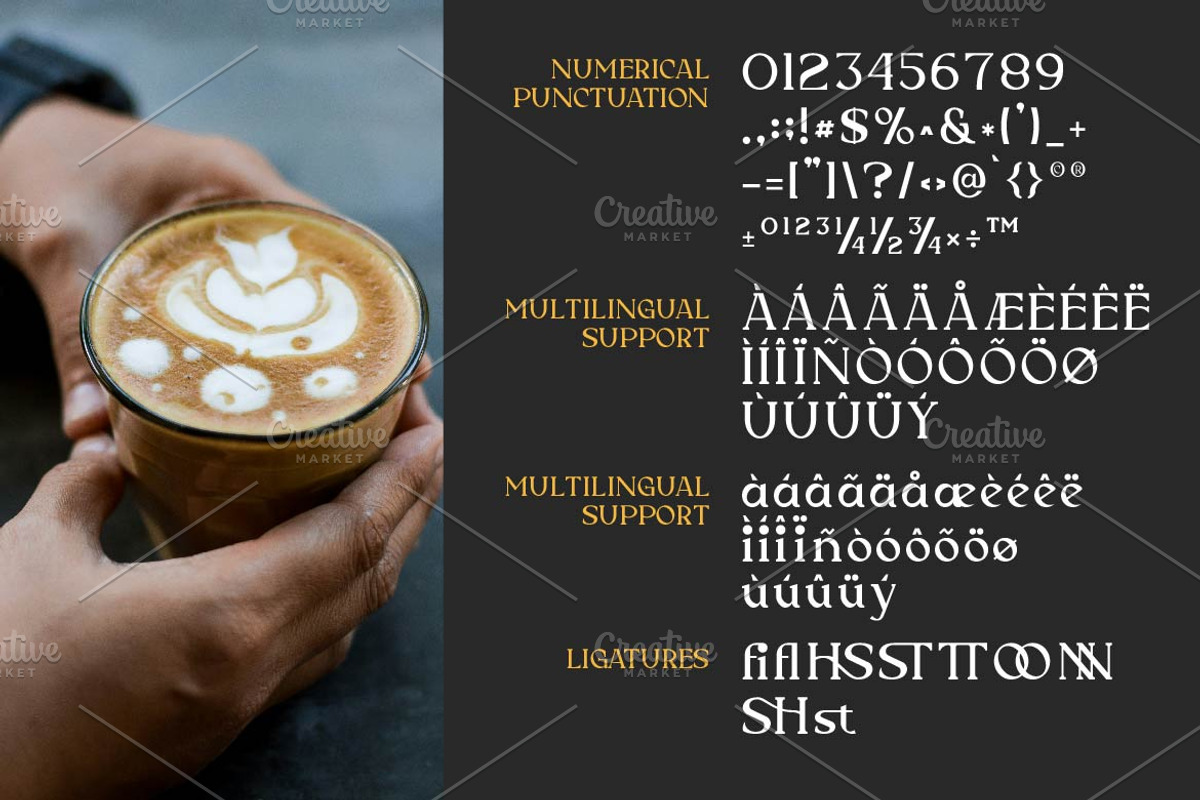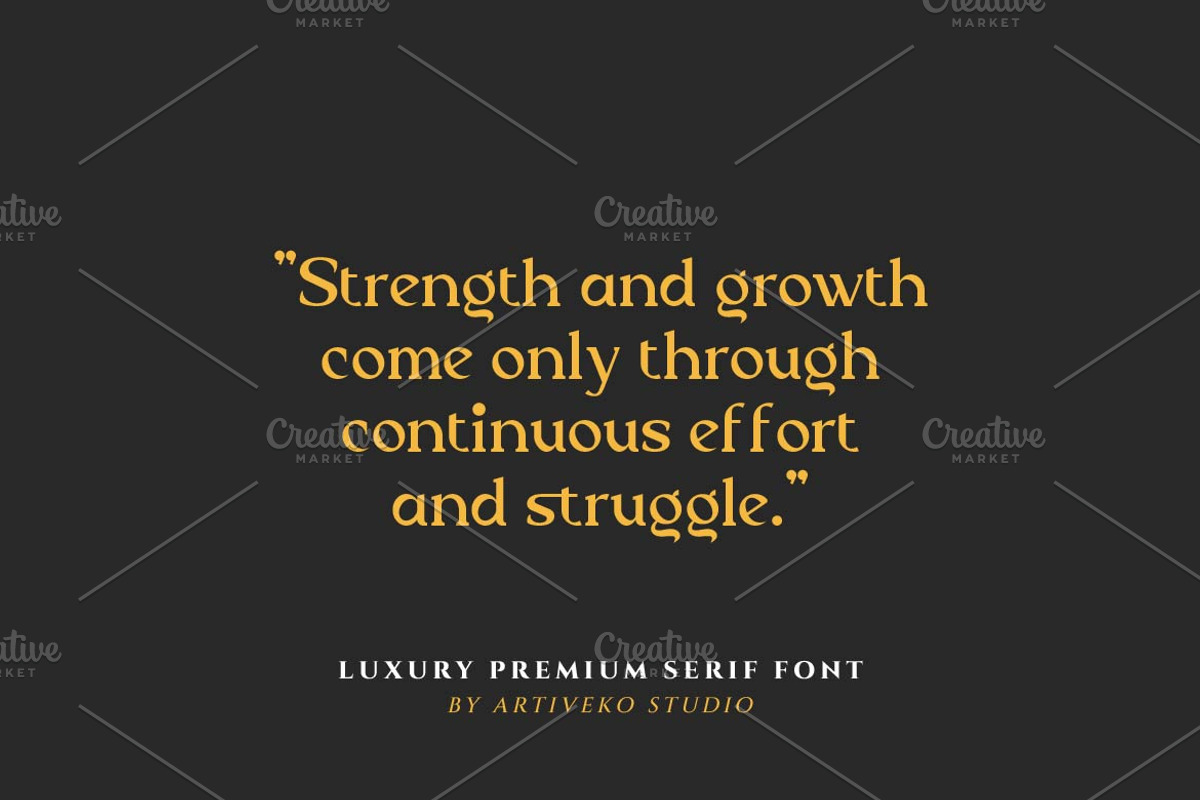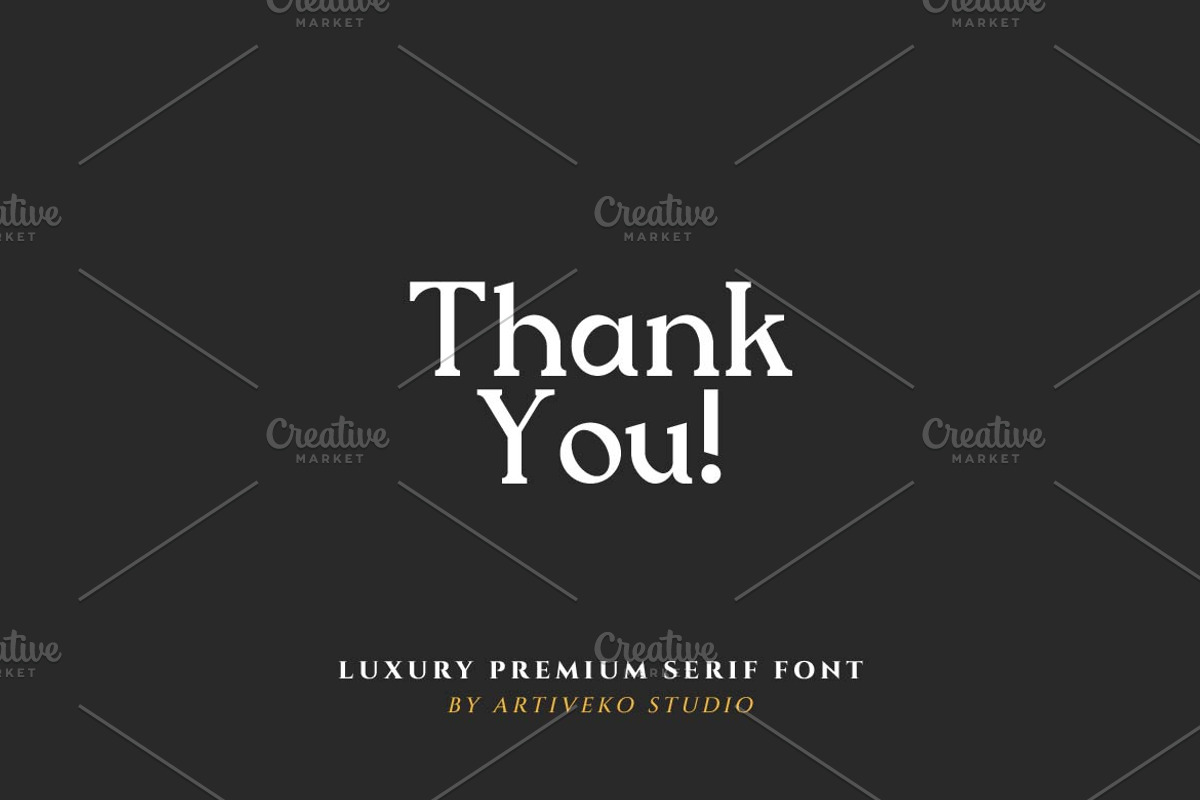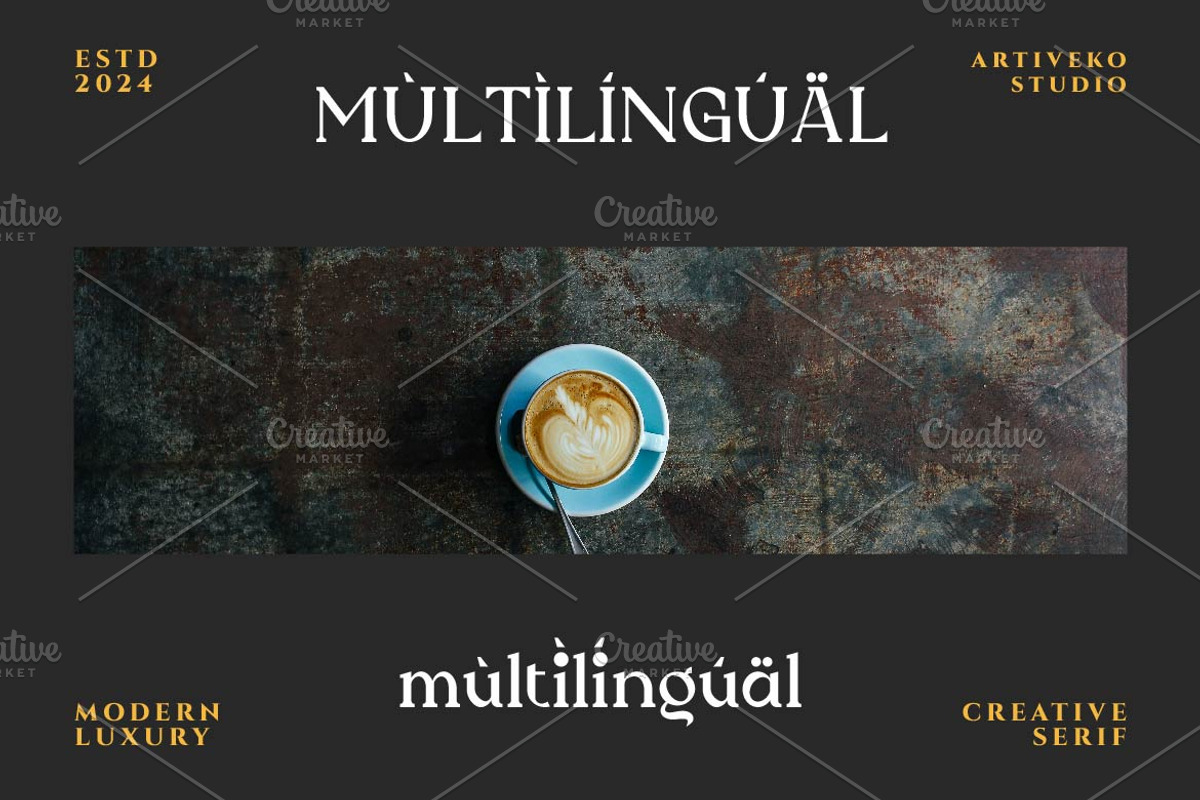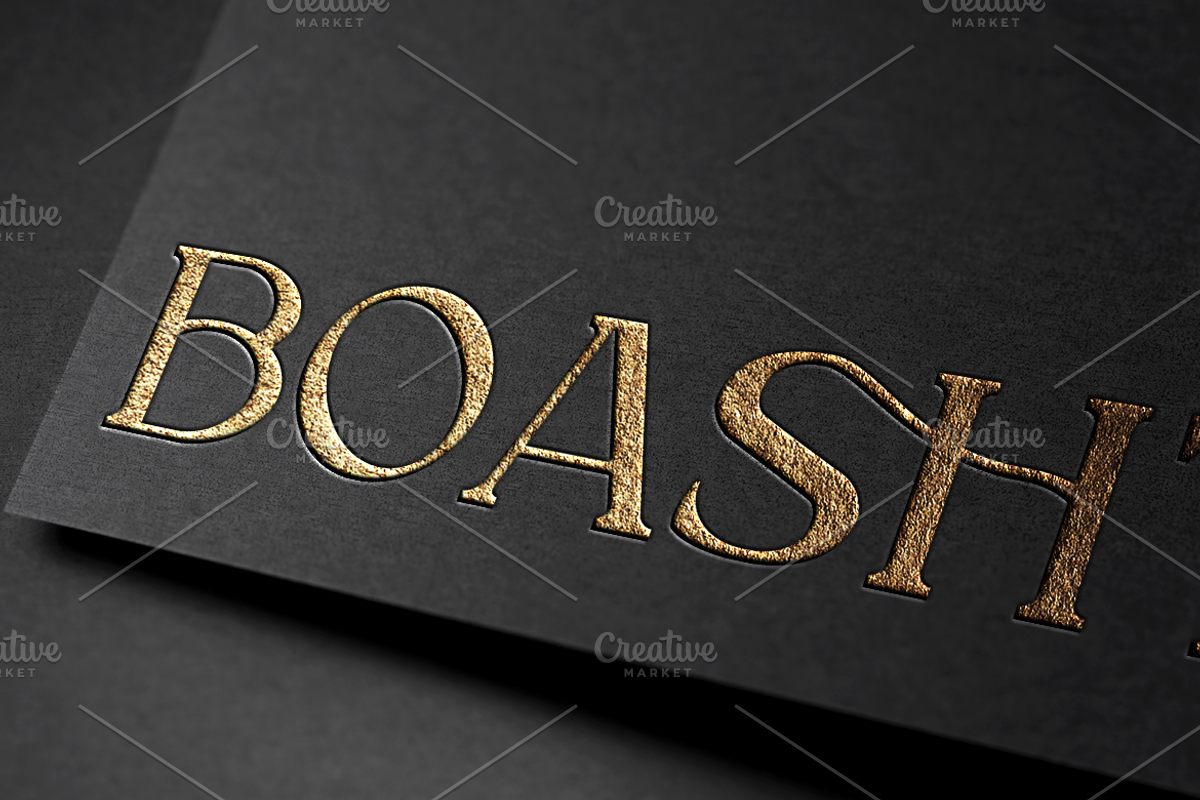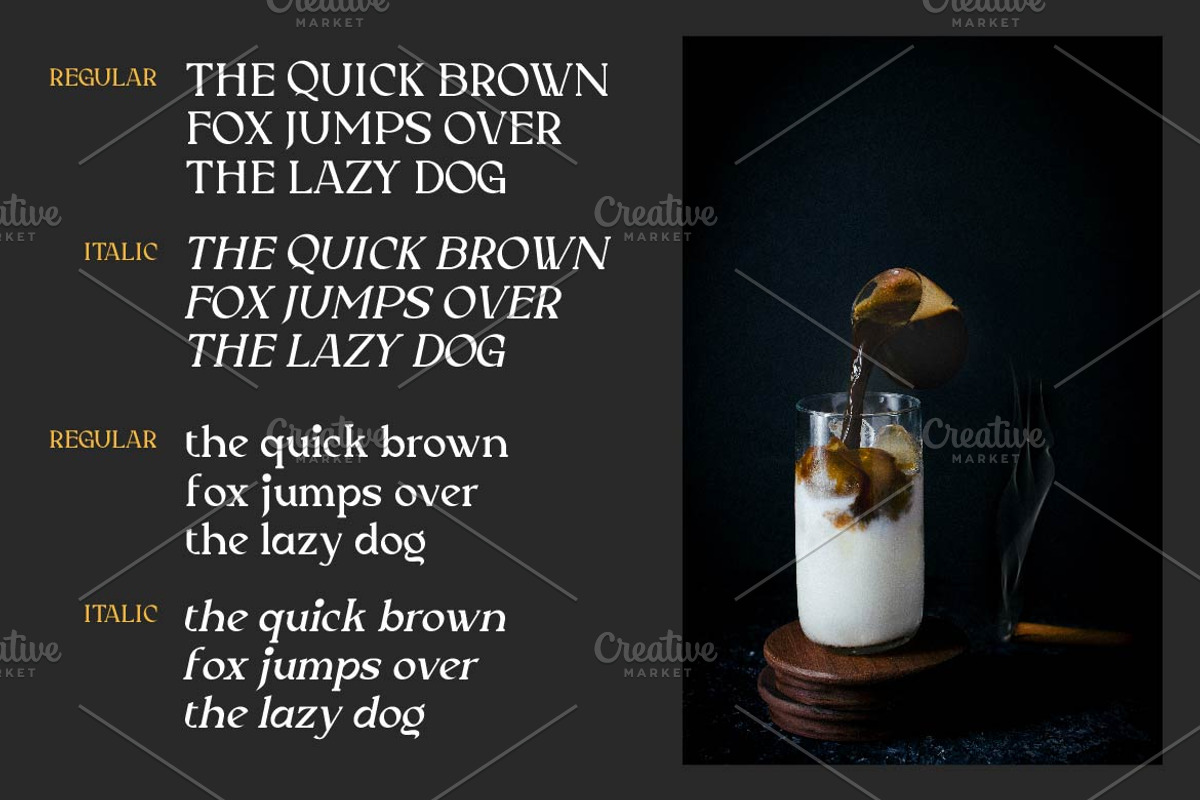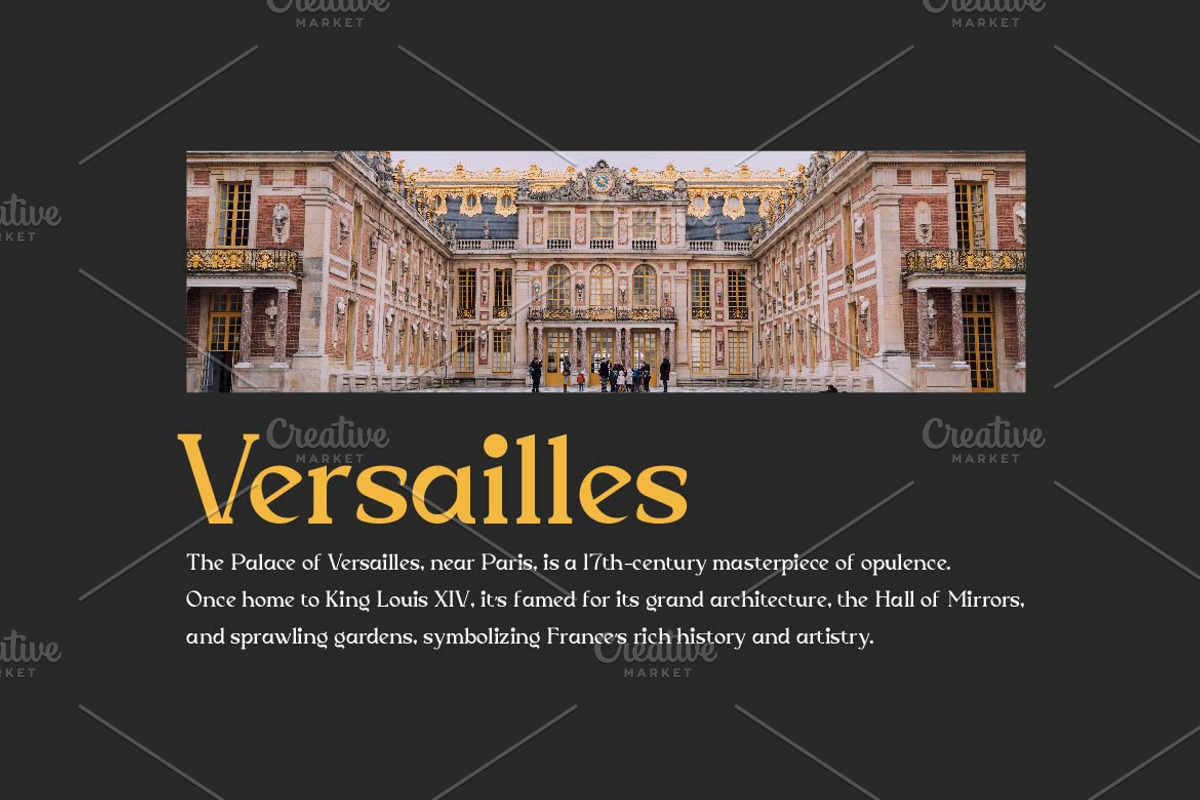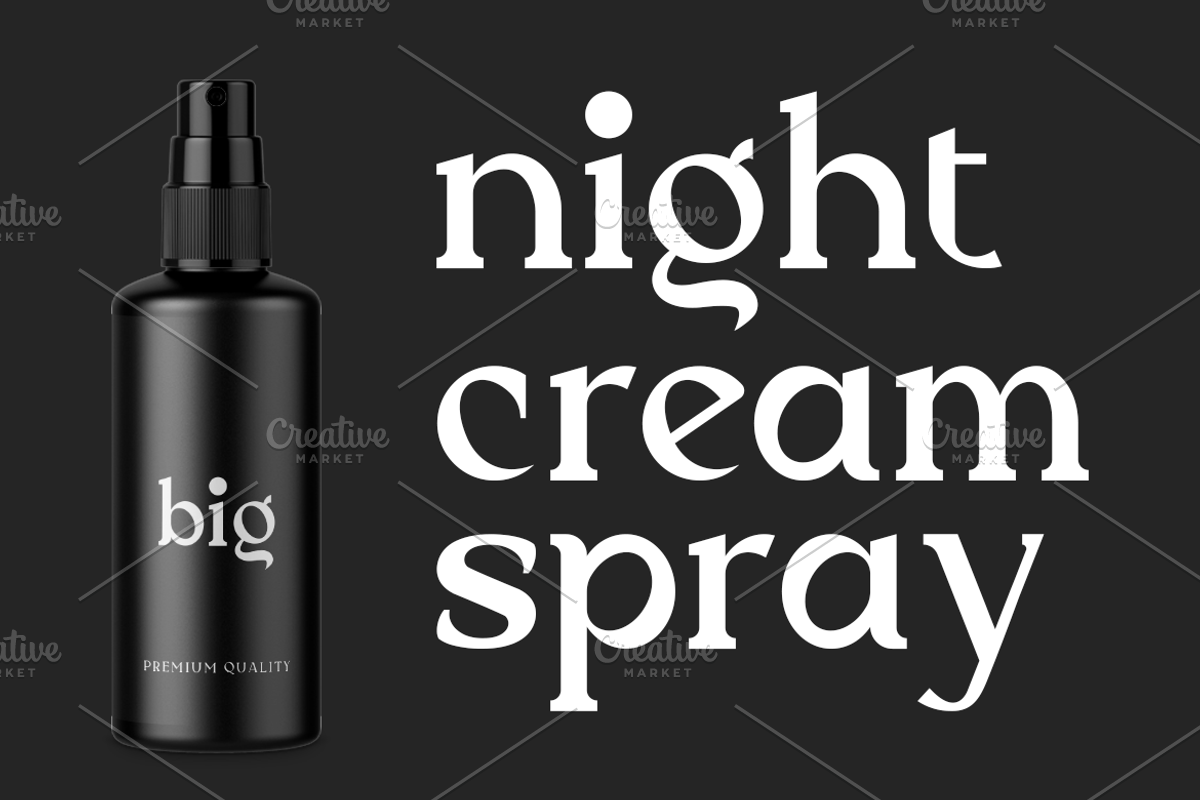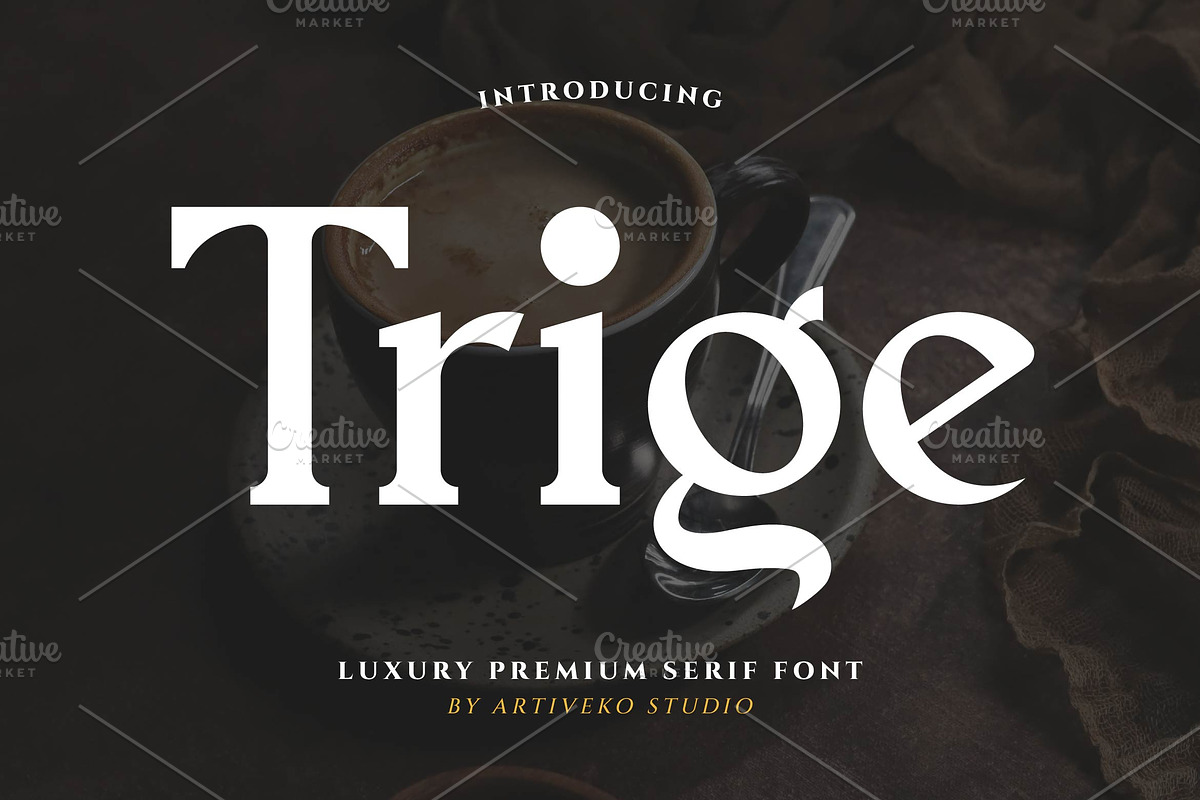
Trige Luxury Premium Serif
Trige is a sophisticated serif font by Iwan Alwan, characterized by its elegant and timeless letterforms. With sharp serifs and balanced proportions, Trige is perfect for branding, editorial layouts, book covers, and high-end designs. Offering multilingual support, ligatures, and alternates, Trige combines classic style with modern versatility, making it an ideal choice for projects that demand a refined and professional aesthetic.